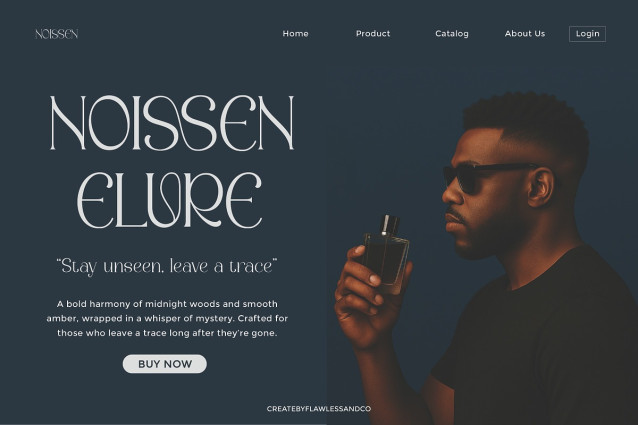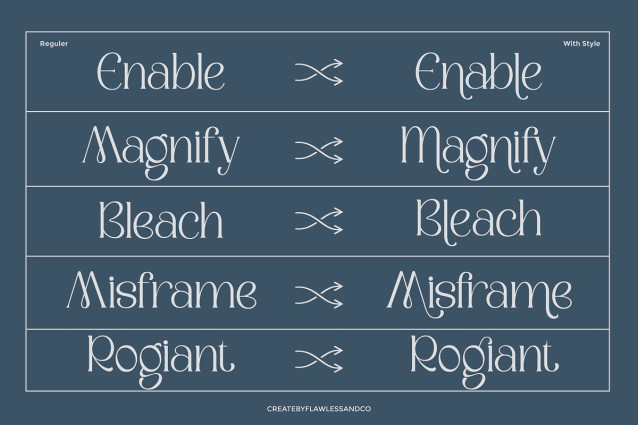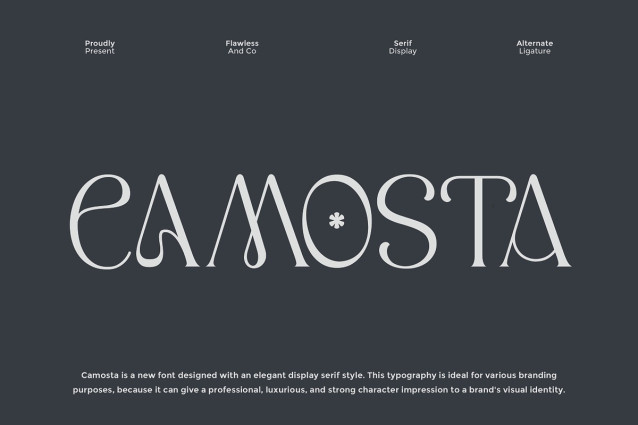
Camosta Font
Camosta Font is a sophisticated serif display font with a touch of artistic elegance. Designed to make a bold yet refined impression, it blends stylish curves with striking alternates to elevate any design. Ideal for branding, editorial, or high-end packaging, Camosta brings a luxurious, professional look while maintaining a unique and memorable character. Whether used in headlines, logos, or magazine layouts, it effortlessly adds a sense of charm and modern classicism to your visual storytelling.